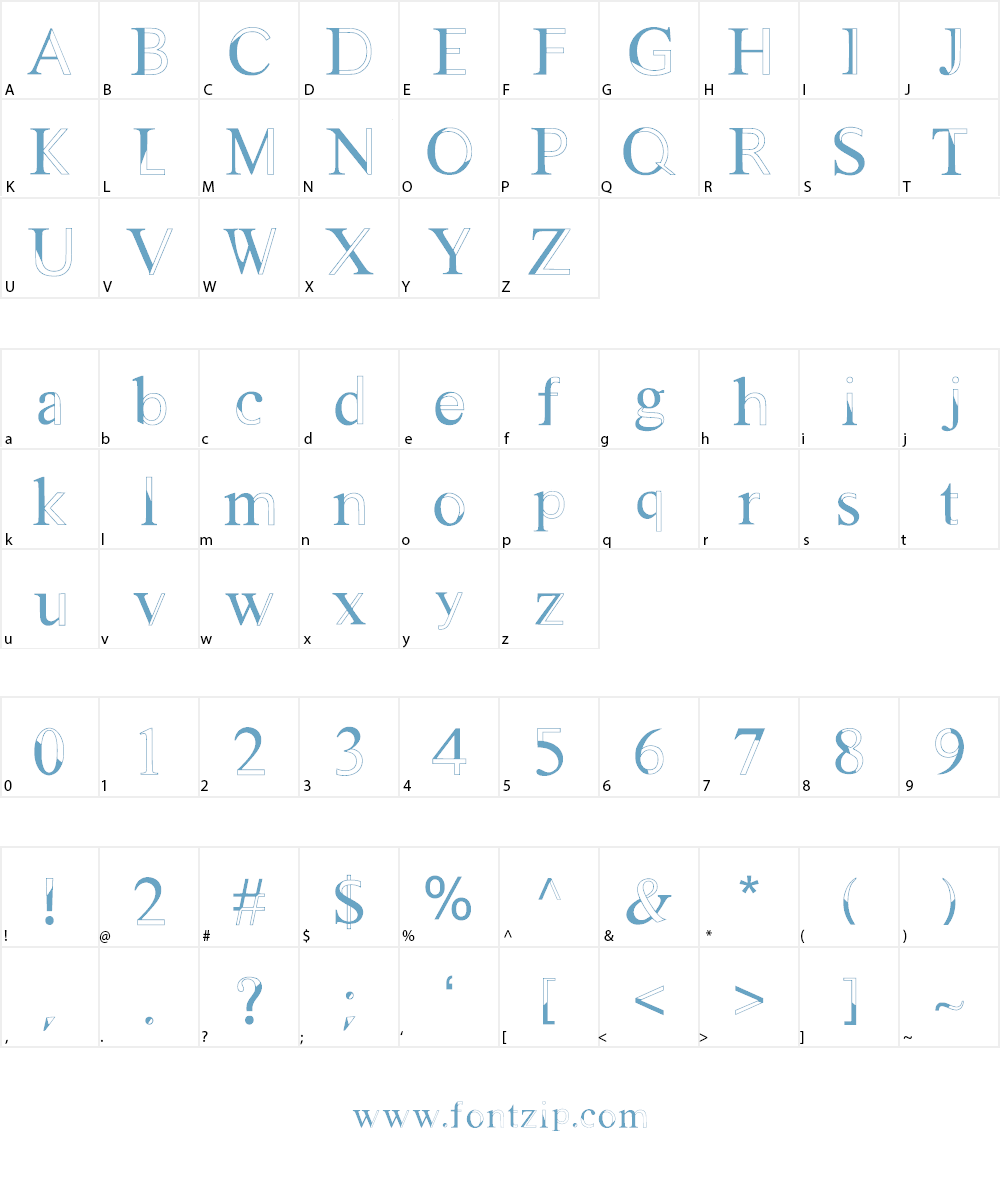
ARQUITETO is a font with a touch of classic and modern. A blend between the Roman family type
and Gothic family type in search of a balance and Innovative.
Built in honor of the classic
movie "12 Angry Men", this font represents Henry Fonda and his intriguing character, the architect.